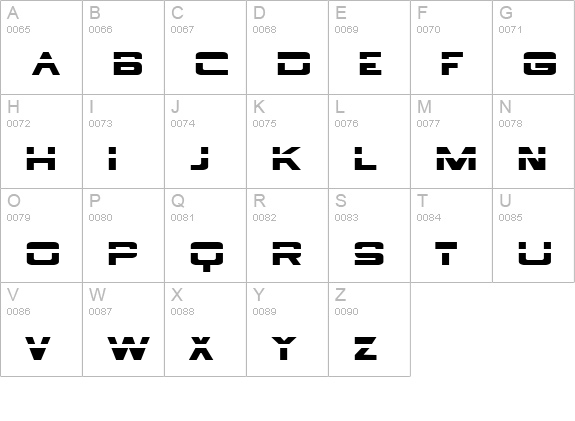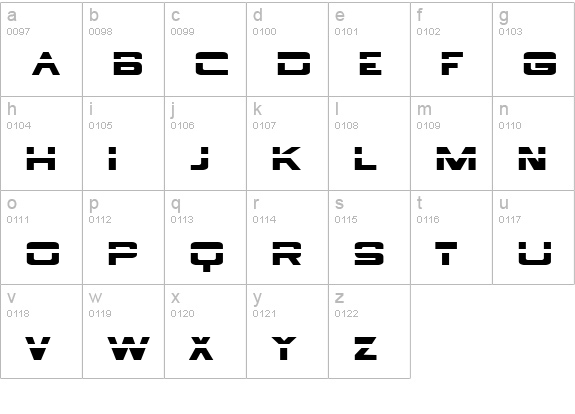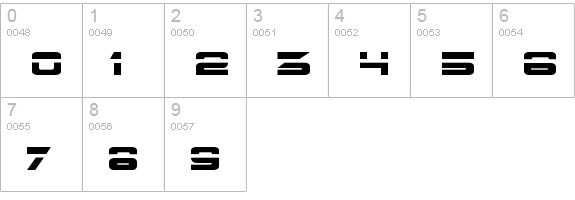
Borg9 Font Details
Borg9 is a sleek and modern font that exudes sophistication and elegance. With its clean lines and geometric shapes, Borg9 is perfect for conveying a sense of professionalism and style in any design project. This versatile font can be used for a variety of purposes, from branding to editorial design. What sets Borg9 apart is not only its stunning aesthetic appeal, but also the fact that it is available for free download at FontsMarket.com. This means that you can access this high-quality font without any cost, making it a valuable addition to your font library. Whether you are a designer looking to elevate your projects or a business owner in need of a fresh new look, Borg9 is the perfect choice for adding a touch of refinement to your work. Download Borg9 today and see the difference it can make in your designs.